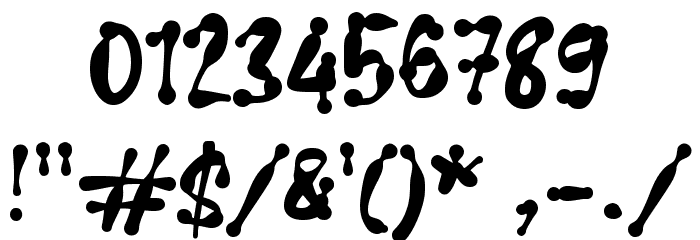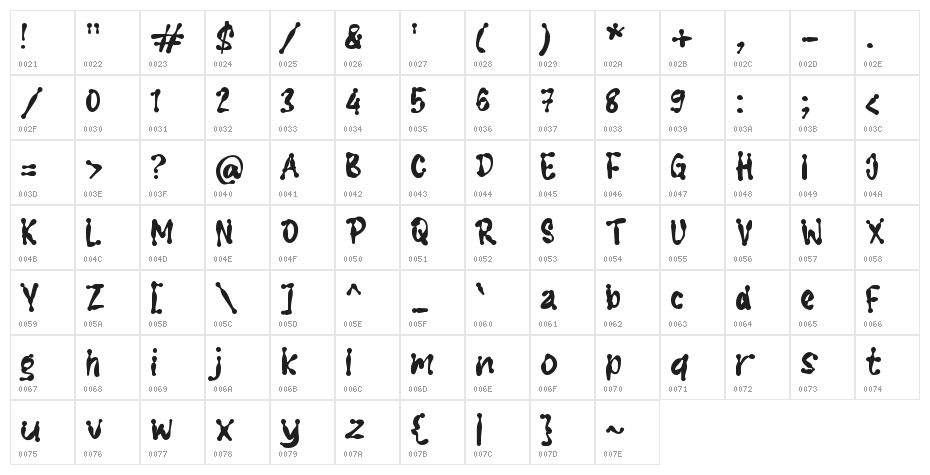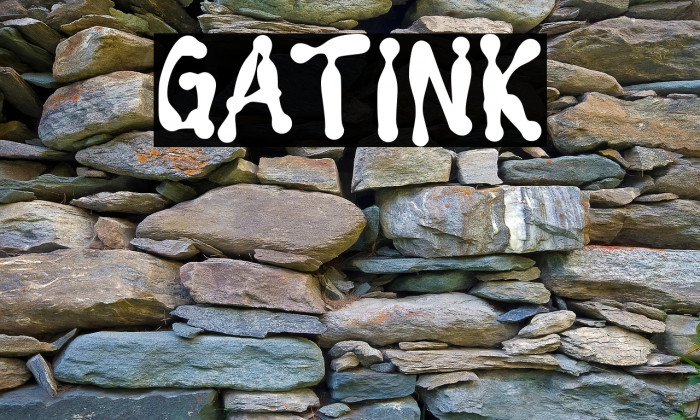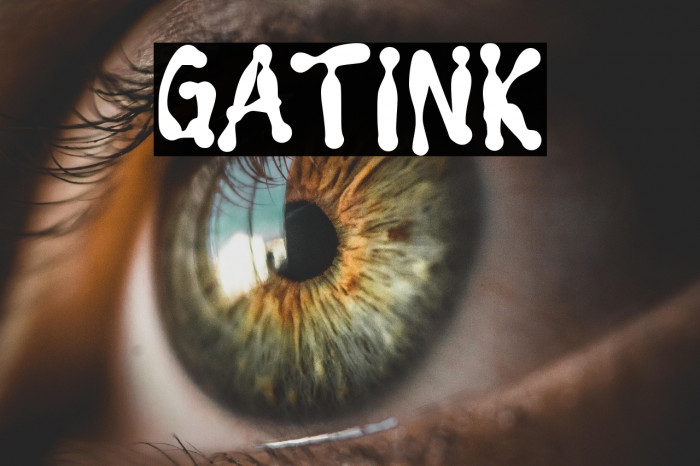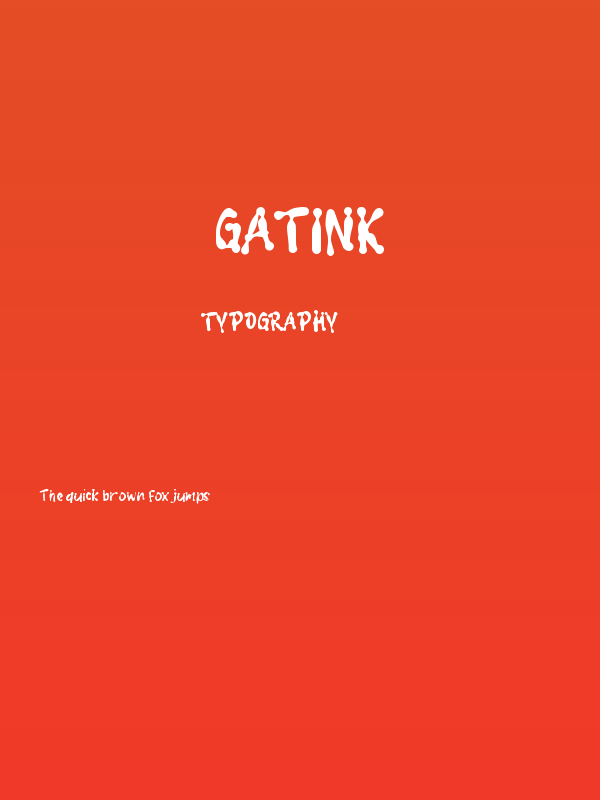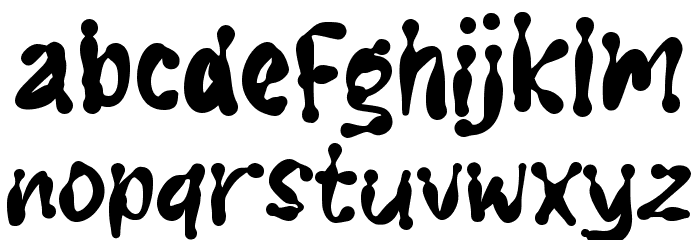
GATINK Font
GATINK Description
This font features a playful and whimsical design, characterized by its irregular, blob-like strokes that give it a unique, hand-drawn appearance. The letters are bold and rounded, with varying thickness that adds a dynamic and lively feel. The uppercase and lowercase letters maintain a consistent style, while the numbers and special characters complement the overall aesthetic. This font's distinctiveness makes it stand out, perfect for creative projects that require a touch of fun and personality.
| Proposed Projects | Ideal for children's books, playful branding, creative posters, and artistic invitations. |